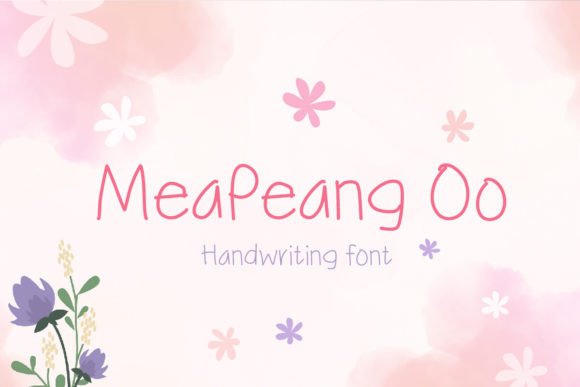
Introducing Meapeang Oo Font, a Handwritten Masterpiece That Will Enchant Your Designs
In a realm where creativity blooms and words take flight, Meapeang Oo Font emerges as a captivating script, ready to infuse your designs with a touch of enchantment. Inspired by the beauty of handwritten notes, this font embodies the essence of personal expression, inviting you to weave your stories with a unique and heartfelt flair.
With its natural and unique style, Meapeang Oo Font transcends the boundaries of ordinary typography. Its flowing lines mimic the graceful strokes of a skilled calligrapher, evoking a sense of intimacy and warmth. Whether you're crafting heartfelt invitations, designing whimsical posters, or creating eye-catching social media graphics, this font will add a touch of magic to your creations.
Step into a world where your imagination is the only limit. Meapeang Oo Font opens up endless possibilities for your design endeavors. Its versatility extends from personal projects to professional endeavors, making it a font that adapts seamlessly to your creative vision. Embrace the art of beautiful penmanship and let your words dance with elegance.
Dive into the world of Meapeang Oo Font and let your creativity soar. Its enchanting charm will captivate your audience, leaving a lasting impression. From heartfelt messages to whimsical designs, this font will elevate your projects to new heights of beauty and engagement.